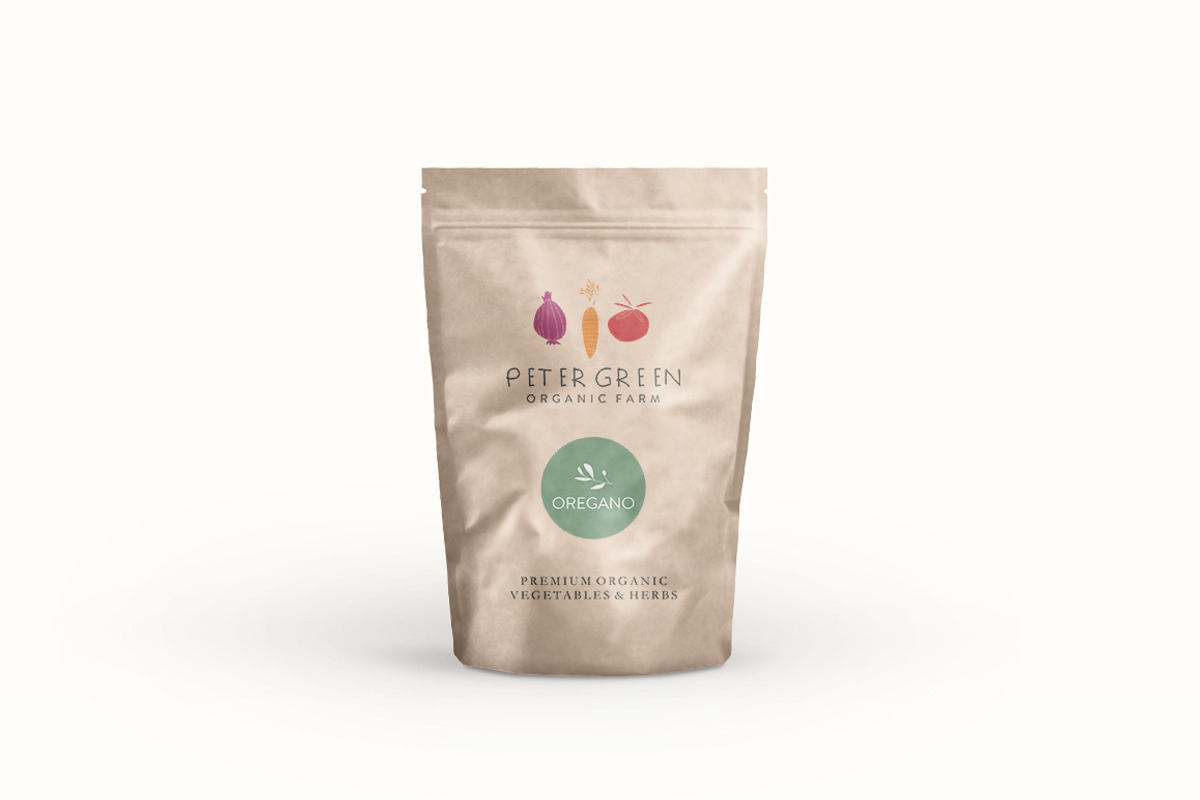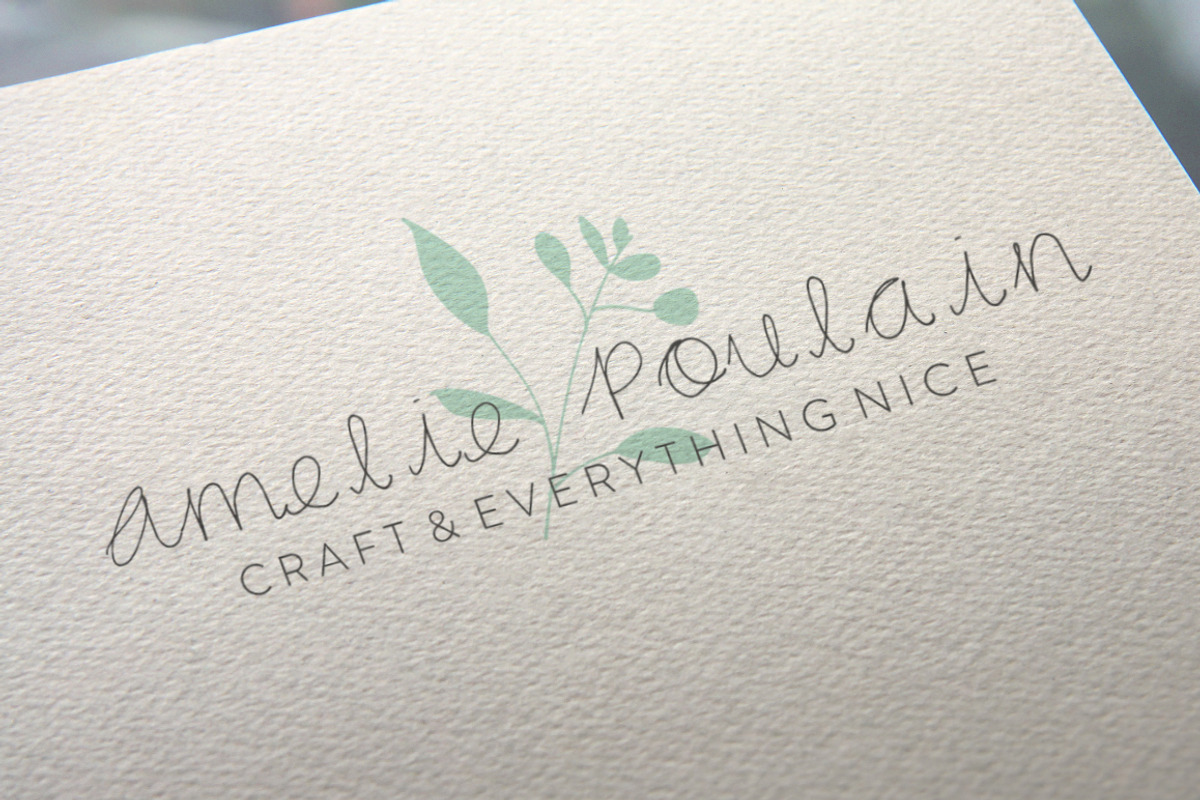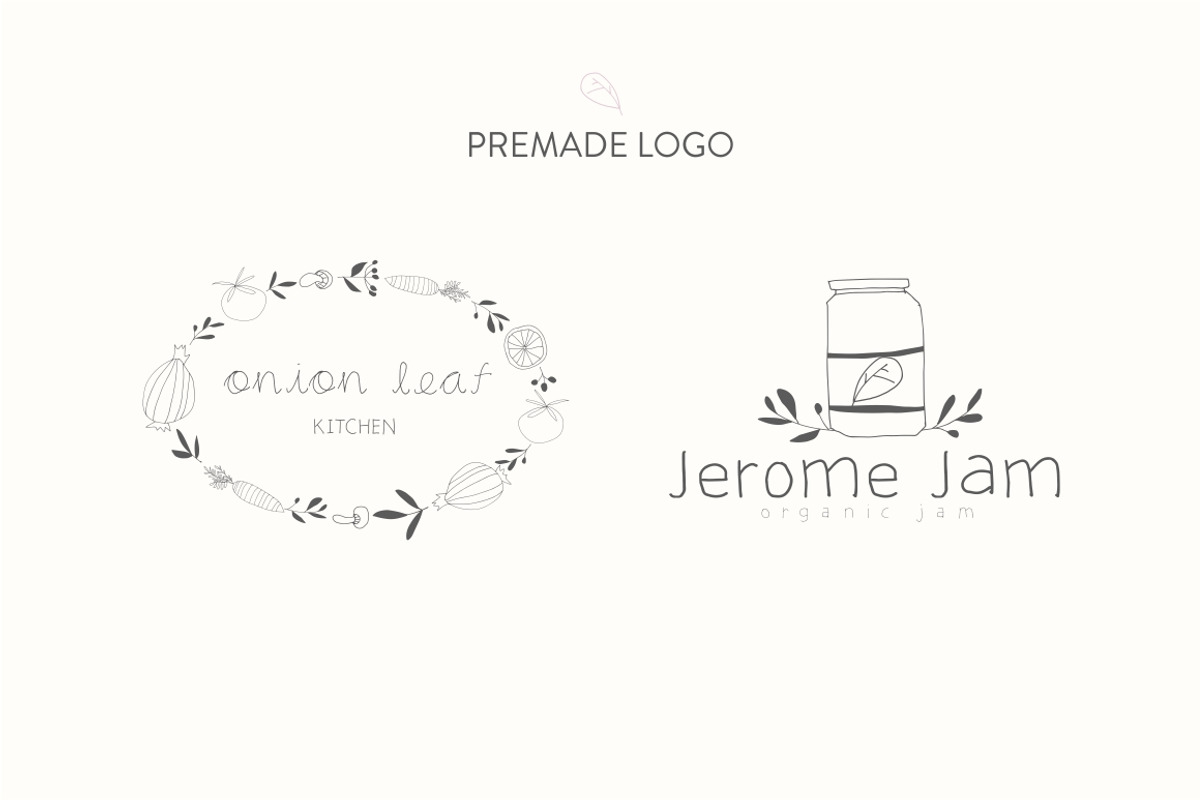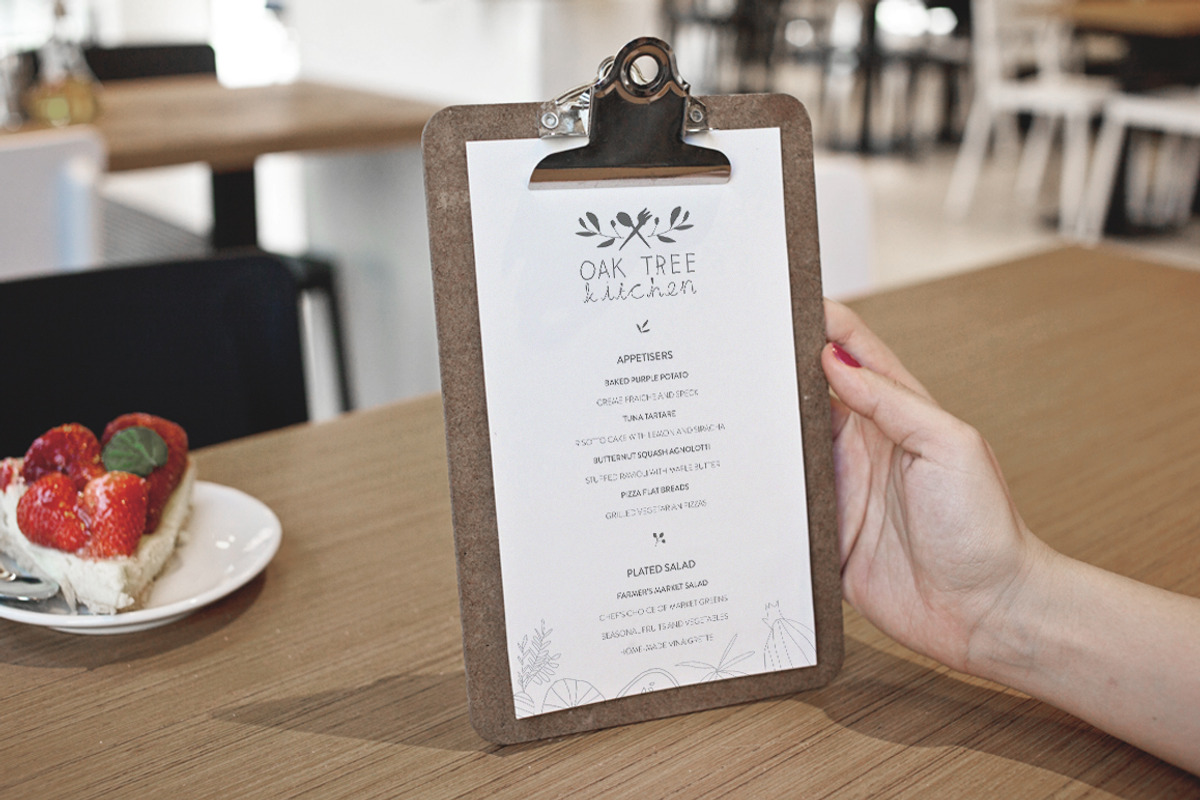
Tarragon, Sage & Satureja
Tarragon, sage and satureja is a font trio with an appealing organic and childish look design inspired by nature. The trio are accompanied with a set of botanical and kitchen appliance illustration to be combined together as an option to create logogram, logotype, invitation, greeting card, t-shirt design, and many more.